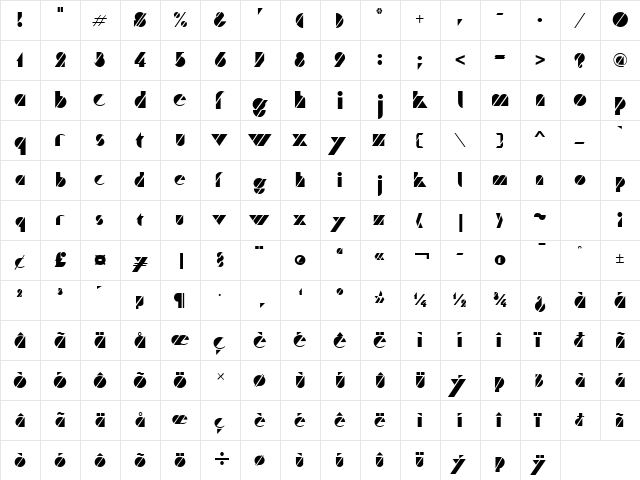
Cane Normal Font Preview
Cane Normal
Cane Normal Font Details
Design Context for Cane Typeface
Cane is a composed and adaptable typeface that performs quietly and consistently across a wide range of design contexts.